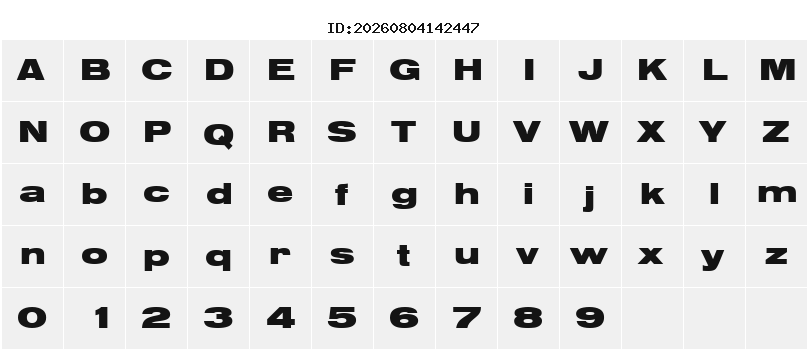
NimbusSanTBlaExt Preview
About NimbusSanTBlaExt.ttf
NimbusSanTBlaExt.ttf is a modern, elegant sans-serif font designed for ultimate readability and visual harmony. Perfect for branding, headlines, web design, and print materials.